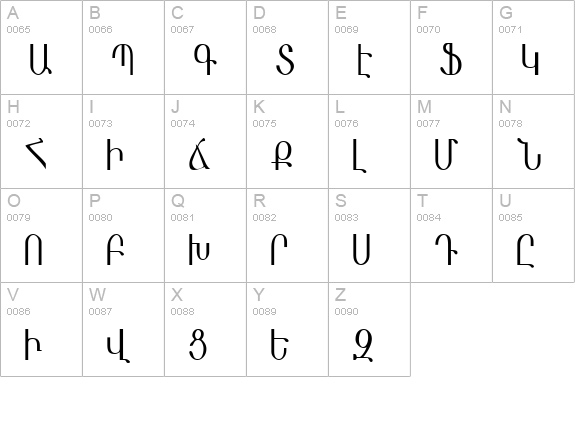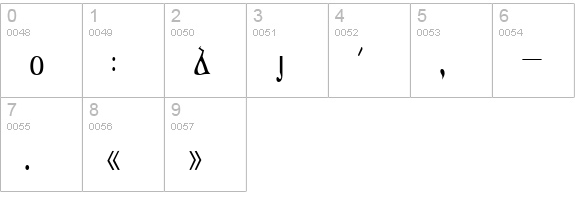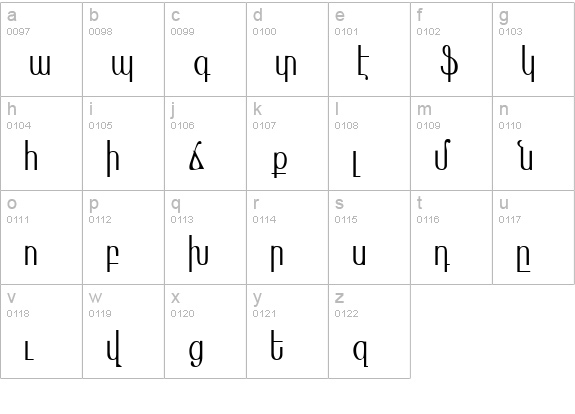
MasisNihar Font Details
Introducing MasisNihar, a captivating font that seamlessly combines elegance and modernity. With its sleek and sophisticated design, MasisNihar stands out as a timeless typeface suitable for a wide range of creative projects. Featuring clean lines and balanced proportions, MasisNihar exudes a sense of professionalism and versatility. Whether used for branding, advertising, editorial design, or any other creative endeavor, this font effortlessly brings your ideas to life, adding a touch of refinement to your work. But what makes MasisNihar truly exceptional is that it is freely available to download at FontsMarket.com. That's right, you can now access this remarkable font without any limitations, making it a valuable asset for both personal and commercial use. Its availability for free allows designers, artists, and enthusiasts alike to explore its endless possibilities without any financial constraints. MasisNihar offers a wide range of weights and styles, ensuring that you have the perfect option for every project. From its bold and impactful variations to its delicate and graceful alternatives, this font provides the flexibility needed to create stunning visuals that leave a lasting impression. In addition to its striking appearance, MasisNihar also boasts excellent legibility, guaranteeing clarity and ease of reading across various media. Whether used in print or digital formats, your content will effortlessly convey your message, captivating audiences and engaging readers. So, why wait? Embrace the beauty and functionality of MasisNihar today and experience the power it brings to your designs. Download this exceptional font for free at FontsMarket.com and unlock a world of creative possibilities. Let MasisNihar be the perfect companion on your journey towards design excellence.